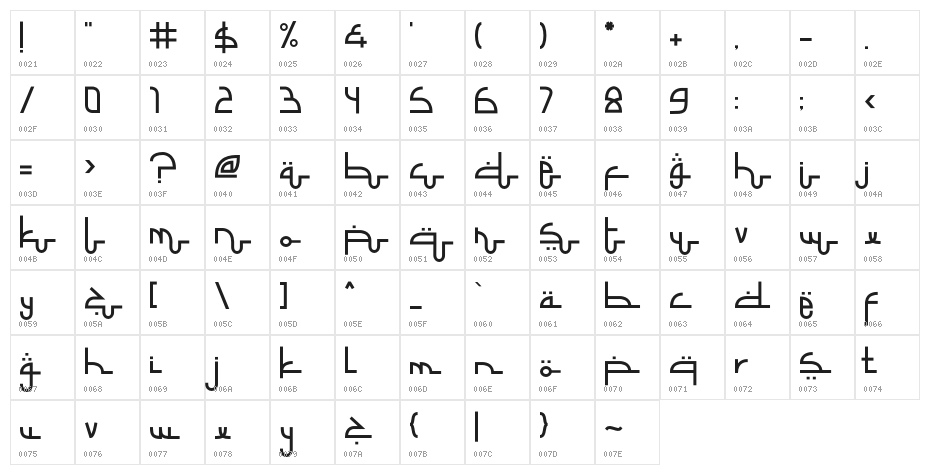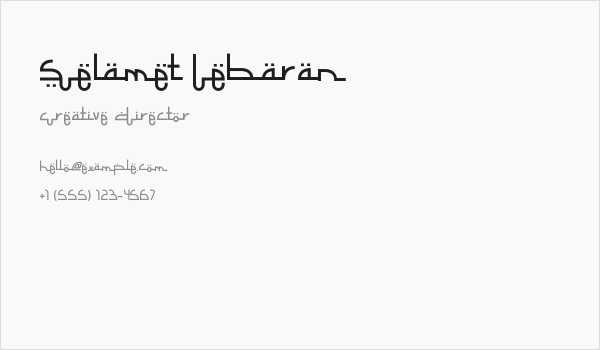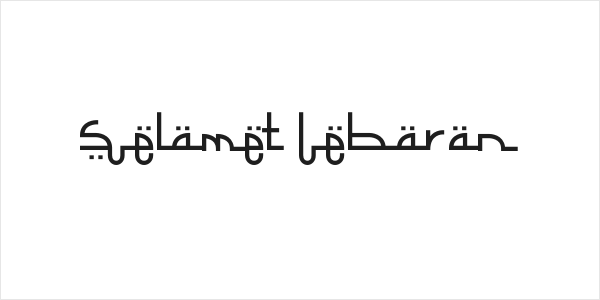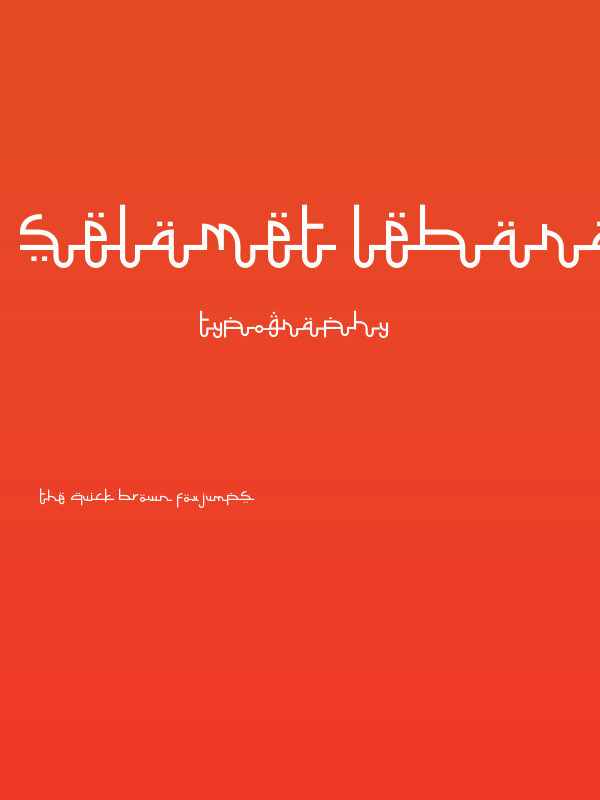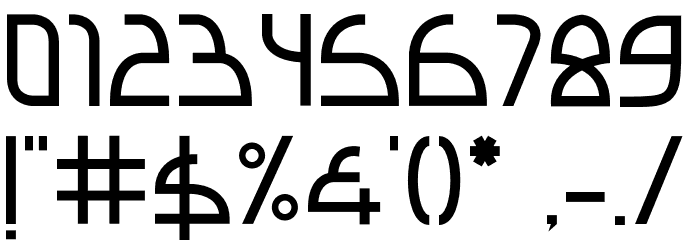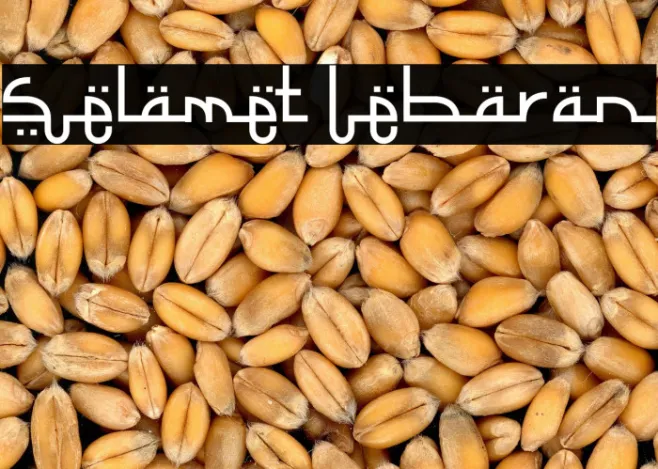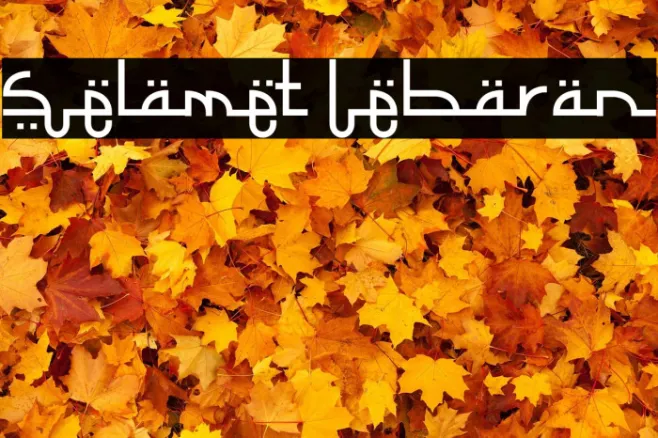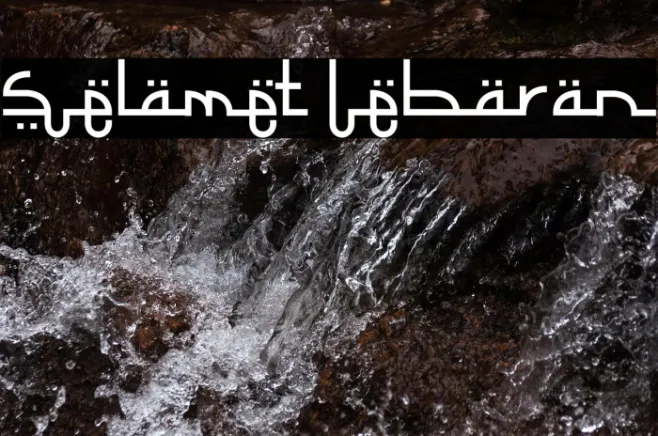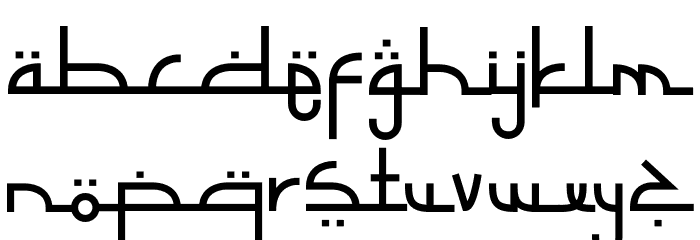
Selamet Lebaran Font
Selamet Lebaran Description
This font features a unique and modern design with a geometric and linear structure. The characters are interconnected with horizontal lines, creating a continuous flow across the text. It includes both uppercase and lowercase letters, numbers, and a variety of special characters. The style is minimalistic yet distinctive, with a futuristic and tech-inspired aesthetic. The font's clean lines and uniform stroke width make it suitable for digital and print media, offering a contemporary look that stands out.
| Proposed Projects | Ideal for tech branding, digital interfaces, modern posters, and innovative product packaging. |